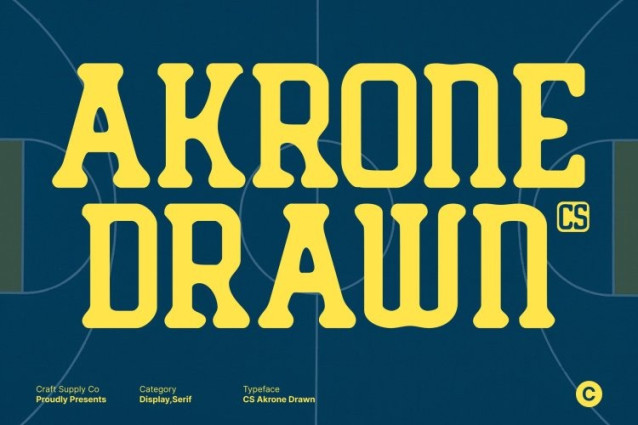
CS Akrone Drawn Font
CS Akrone Drawn Font This is a slab serif font crafted to blend gentle softness with confident strength. Its sturdy slab serifs create a grounded and reliable structure, while smooth curves and well-balanced proportions add an approachable, friendly tone. The drawn texture enhances its character, giving the font a natural, handcrafted feel that feels modern yet expressive.
Clear Impact with Excellent Readability
Designed for visibility and clarity, this font performs beautifully at larger sizes. Its clean letterforms and confident weight ensure strong readability even from a distance, making it an excellent choice for headlines, posters, advertisements, and billboards. The font delivers impact without sacrificing comfort or visual balance.
Modern, Sturdy, and Visually Engaging
With its contemporary construction and solid presence, this font conveys a modern and dependable visual identity. It feels strong without being aggressive, making it suitable for designs that aim to appear bold, trustworthy, and inviting at the same time. The softness in its form keeps layouts feeling fresh and approachable.
Perfect for Logos and Bold Branding
From logo design to large-scale branding and promotional materials, this font offers versatility and confidence. Its balanced personality helps create memorable typography that communicates strength, clarity, and modern appeal making it a reliable choice for brands that want to stand out with warmth and authority.